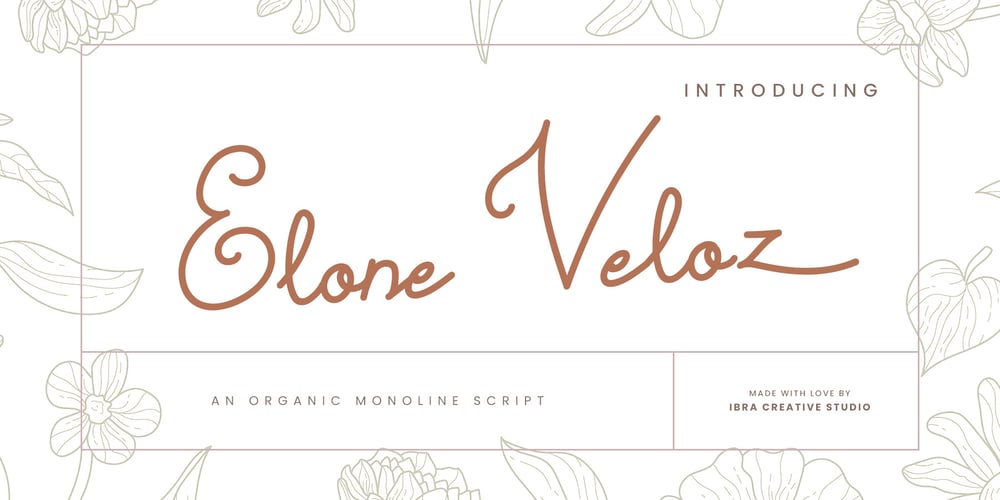
Elone Veloz Font Family was designed by Roisatul Azizah and published by IbraCreative. Elone Veloz contains 1 styles and family package options. Elone Veloz is a captivating and organic monoline font that evokes a sense of natural beauty and effortless grace. Inspired by the gentle curves of a snail’s trail, this script font carries a harmonious flow and a touch of whimsy. Each letter exudes a handmade charm, as if written with a single fluid stroke. Elone Veloz’s monoline design adds a contemporary and refined touch, making it perfect for a wide range of creative projects, from wedding invitations and stationery to nature-themed branding and packaging. Its versatility allows it to seamlessly adapt to both elegant and casual designs, while its inherent organic feel adds a warm and inviting atmosphere. With its serene and enchanting nature, Elone Veloz encapsulates the beauty of the natural world in a timeless and elegant script font.